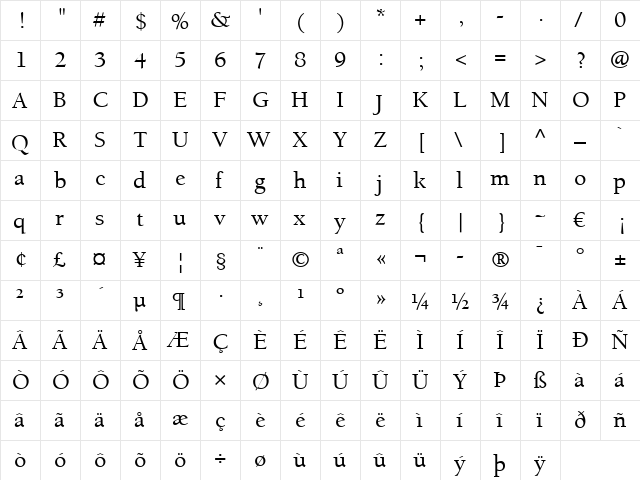
Berkeley LT Regular
Design Context for Berkeley LT Typeface
Berkeley LT offers clean, dependable letterforms without strong stylistic allegiance, making it a practical choice for designers who need flexibility. Its slender proportions lend an understated elegance to any composition.
Pro Tip: Use Berkeley LT in both headline and body roles to test its range before committing to a single application.